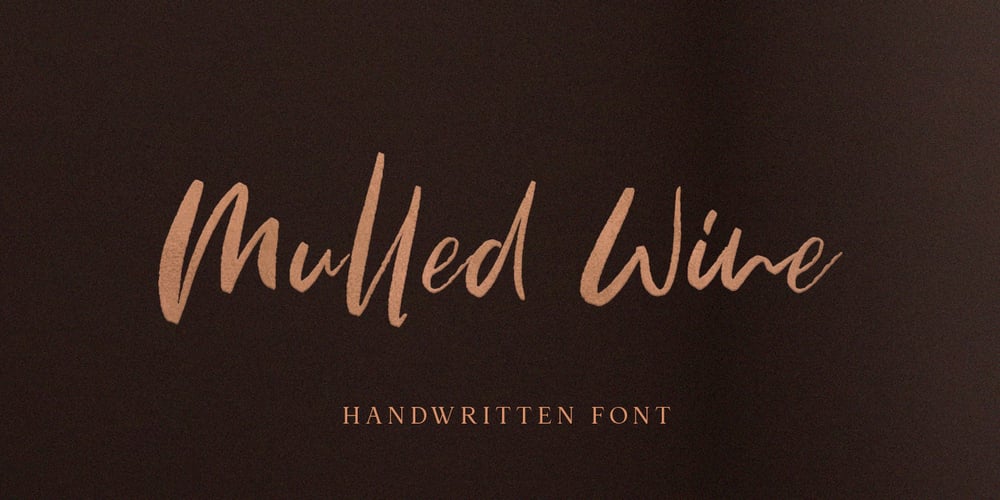
Mulled Wine
Mulled Wine font
Mulled Wine Font Family was designed by Pavel Larin and published by Larin Type Co. Mulled Wine contains 1 styles and family package options. Mulled Wine is a beautiful and elegant hand drawn brush font, and will emphasize your individuality in any project. You can also use it to create a logo or templates, invitations, blog, branding, marketing, book covers, magazines, advertising, stationery, logo design and much more.